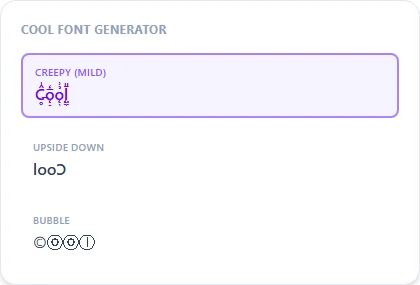
"Cool" isn't one specific look. It's whatever stands out. This generator leans into that by mixing genuinely different styles: glitchy zalgo text, upside-down text, bubble and squared letters, small caps, and more, alongside the standard bold/italic set.
Cool Font Generator style examples: Creepy (Mild), Upside Down, Bubble, rendered on the word "Cool"
Why this page mixes so many unrelated styles
Most style pages on this site pick one specific look (bold, cursive, gothic). This one is deliberately different, because 'cool font' searches don't converge on a single style the way 'bold font' does. People mean anything from a subtle small-caps swap to a fully glitched-out zalgo effect. Rather than guess wrong, the featured set spans the range: structural tricks (upside-down, bubble, squared), weight (bold-script), and distortion (mild zalgo) side by side.
Cool text for usernames vs. one-off posts
Small Caps, Bubble, and Squared read cleanly at small sizes and hold up fine as a permanent username or nickname. Zalgo/glitch styles are more attention-grabbing but harder to read in long strings, better suited to a single post, comment, or bio line than a name you'll reuse everywhere.
What's the most popular 'cool font' style?
Bubble (circled) and glitch/zalgo text are the two most commonly used for standing out in comments and usernames, based on what competitor sites and social platforms show most.
Will glitchy zalgo text look the same every time I generate it?
Yes, for the same input. The glitch marks are generated from your text itself, so the same word always comes out the same way instead of changing on every copy. Try the Mild, Glitch, and Cursed variants for different intensities.
Which cool style is easiest to read?
Small Caps and Monospace stay the most legible even in longer sentences; save the heavier glitch and zalgo styles for short bursts.
Is there a single 'coolest' font?
It's subjective and depends on the platform. Try a few styles against your actual text before deciding, since the same style can look great in a bio and cramped in a username field.